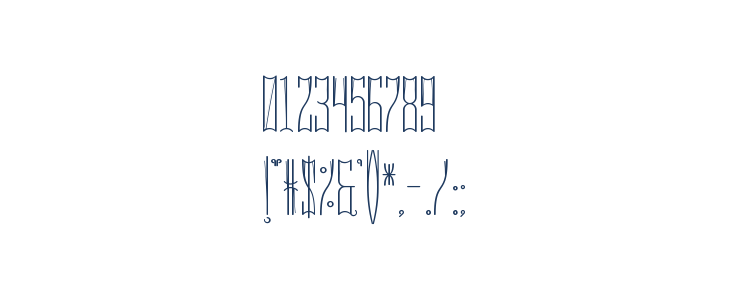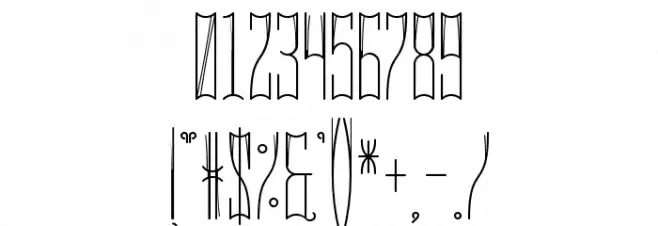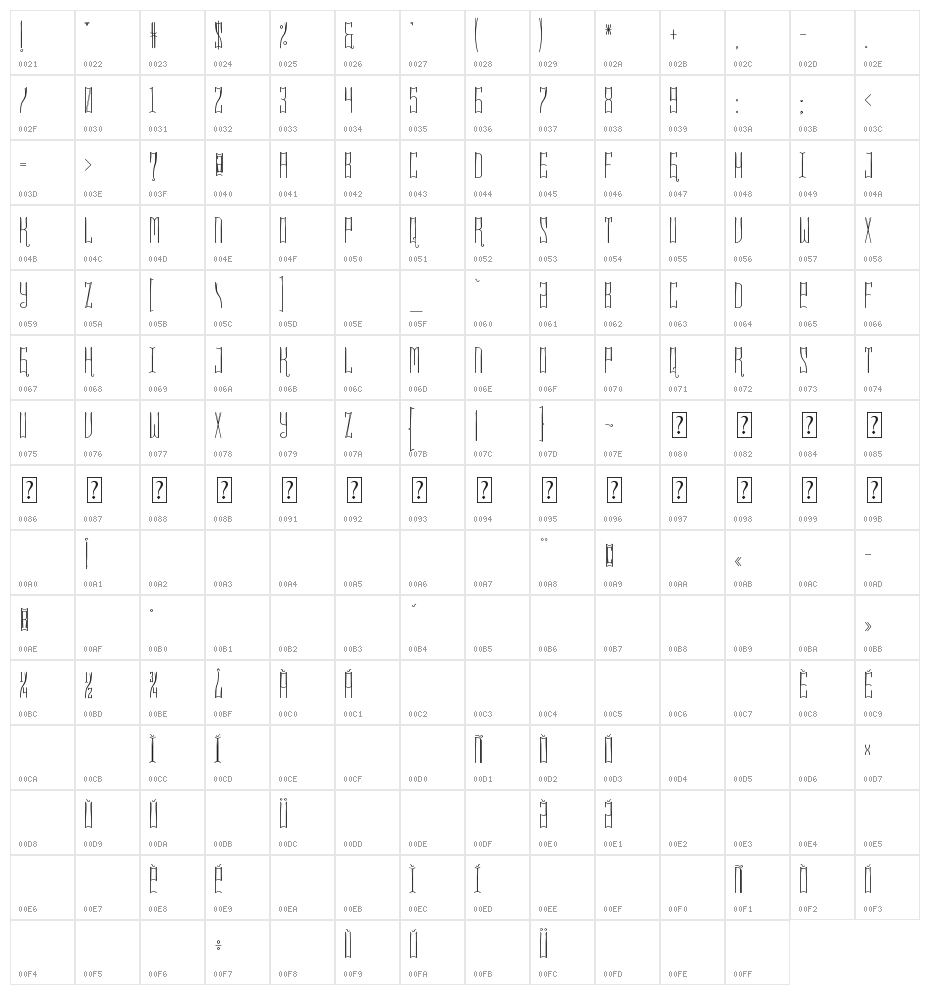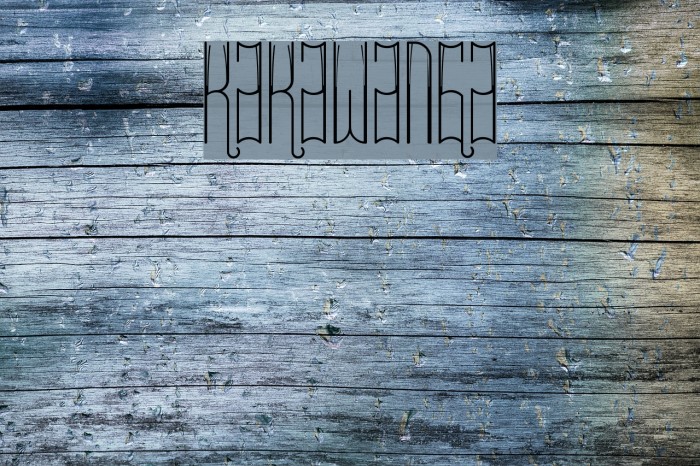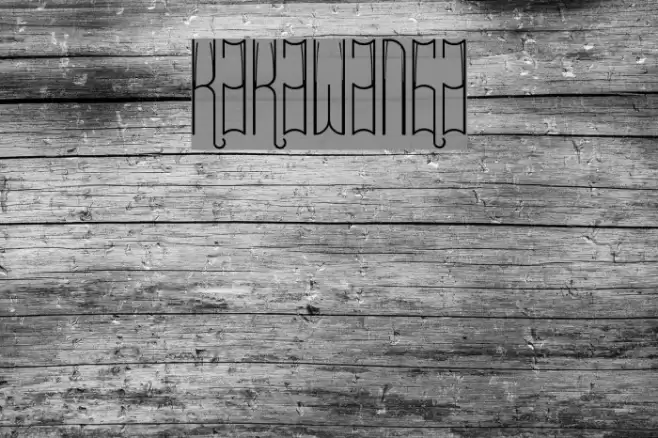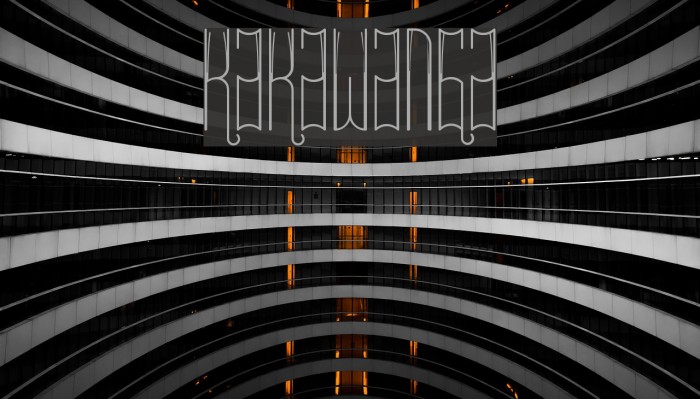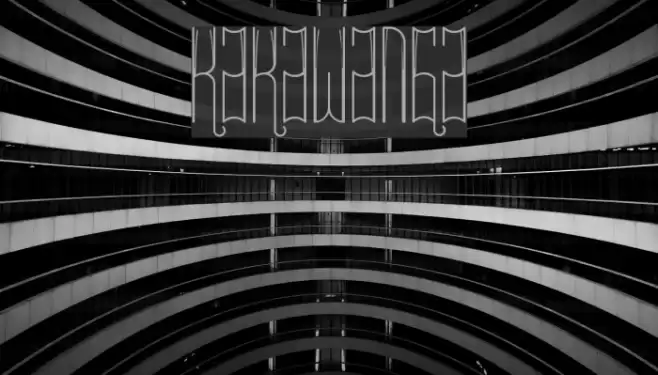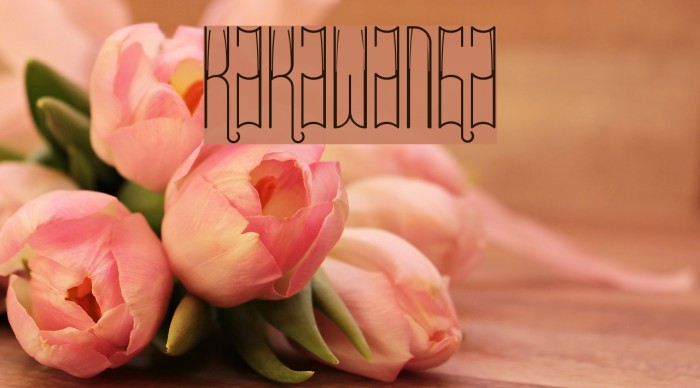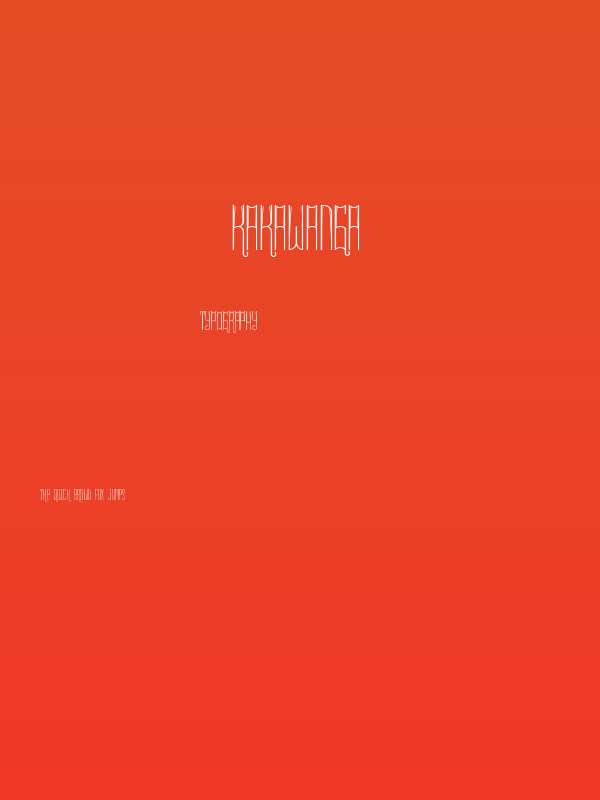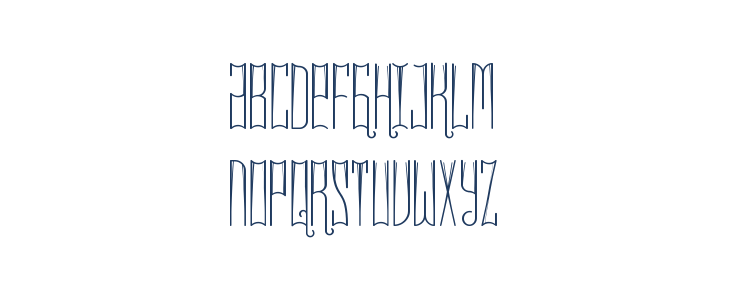
Kakawanga Font
This font features a unique and artistic design with elongated and narrow letterforms. The characters have a tall, slender appearance, with some letters incorporating subtle curves and decorative elements, giving it a distinct and elegant look. The uppercase and lowercase letters maintain a consistent style, while the numbers and special characters complement the overall aesthetic. The font's intricate details and stylish flair make it suitable for creative and eye-catching designs.
| Proposed Projects | Ideal for branding, posters, invitations, and any project requiring a sophisticated and artistic touch. |